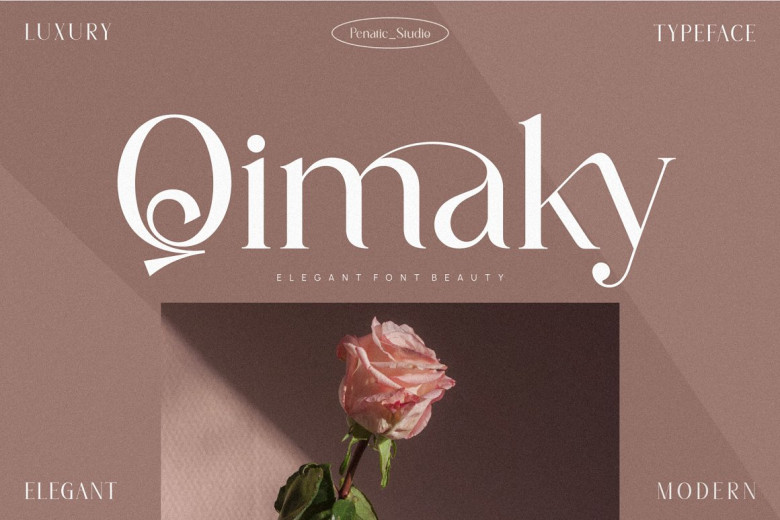
Qimaky Font
Our new product: Qimaky graceful font beauty. A modern font has been created and disassembled with smooth curves. There are many ligatures and alternative letters that will make your project more elegant and beautiful.
Qimaky Serif Font